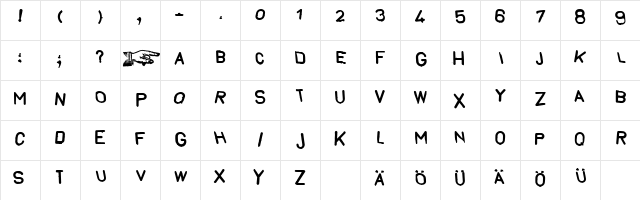
Rip Regular
Design Context for Rip Typeface
Rip is a composed and adaptable typeface that performs quietly and consistently across a wide range of design contexts.
Pro Tip: Use Rip in both headline and body roles to test its range before committing to a single application.